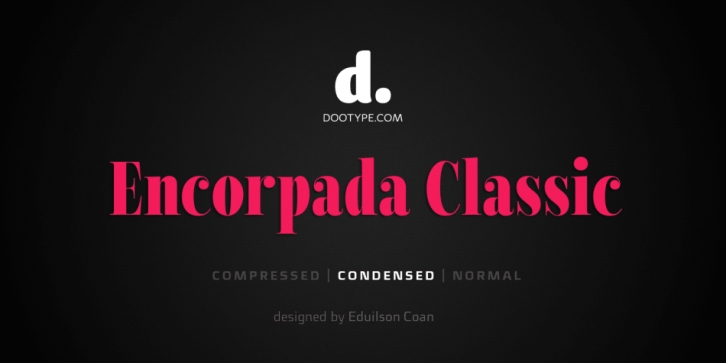
Publisher: dooType
Designed by Eduilson Wessler Coan, Encorpada Classic Condensed is a serif font family. This typeface has ten styles and was published by dooType.
Encorpada Classic Condensed, designed by Eduilson Coan, brings the best features of the Didone genre, but with a 21st century look and feel. With smooth details Encorpada Classic is an elegant choice for your type library.
The family has three widths – compressed, condensed & normal, support for more than 40 languages and opentype features.